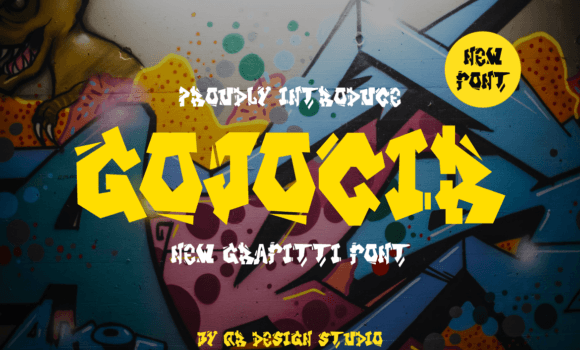
Gojocir Font – Free Download Introduction to Gojocir Font Gojocir is an incredibly unique display font. 📸 Preview Gallery 5 images 📌 Product Name Gojocir Font 👤 Author qrdesignstd 📂 Category Explore ⬇️ Download Gojocir Font FREE Free Download •